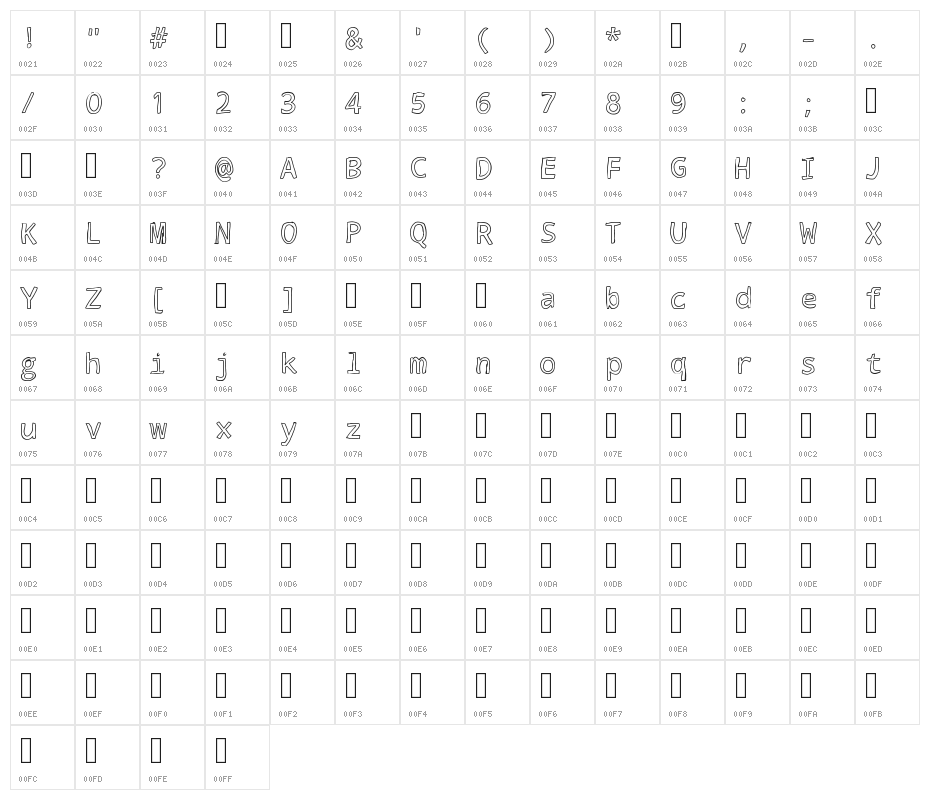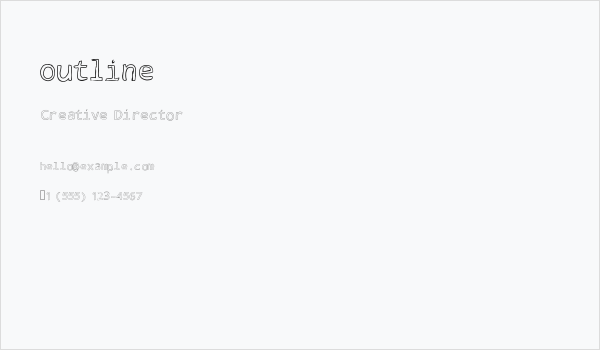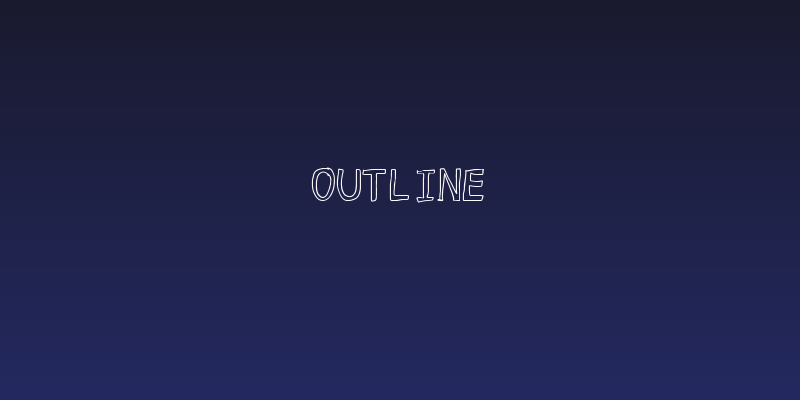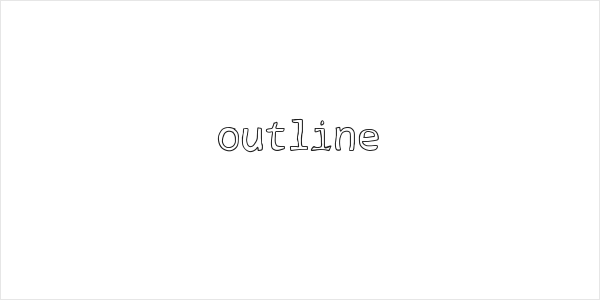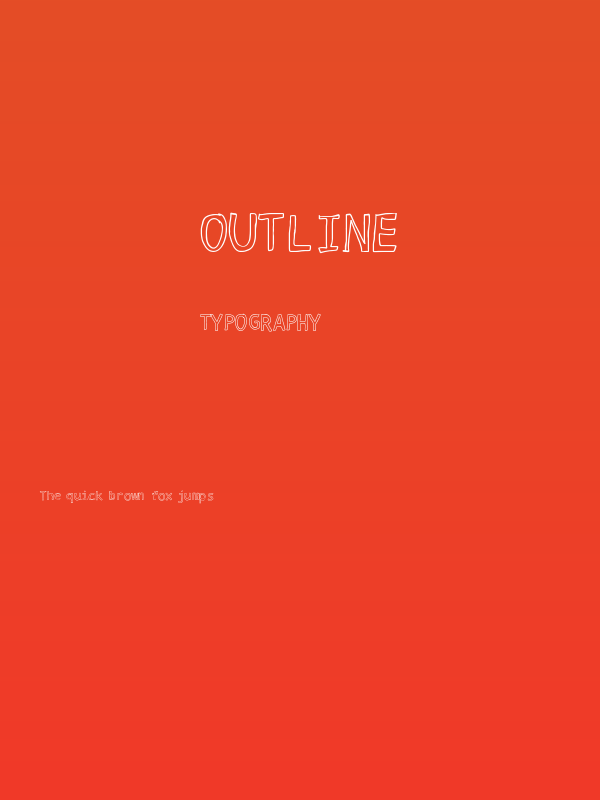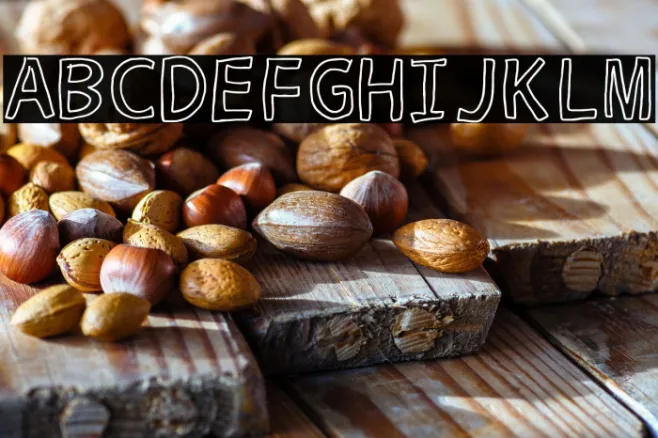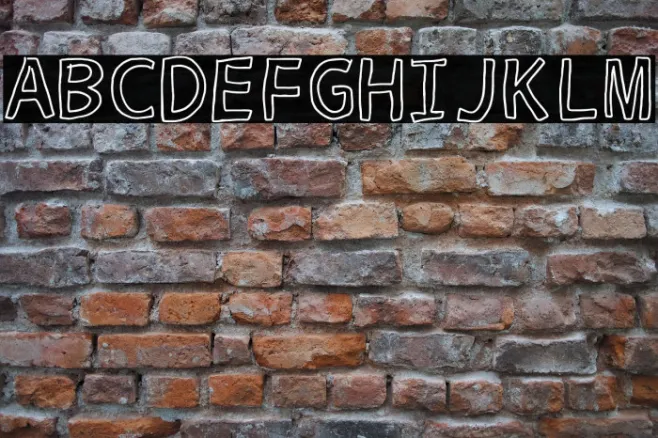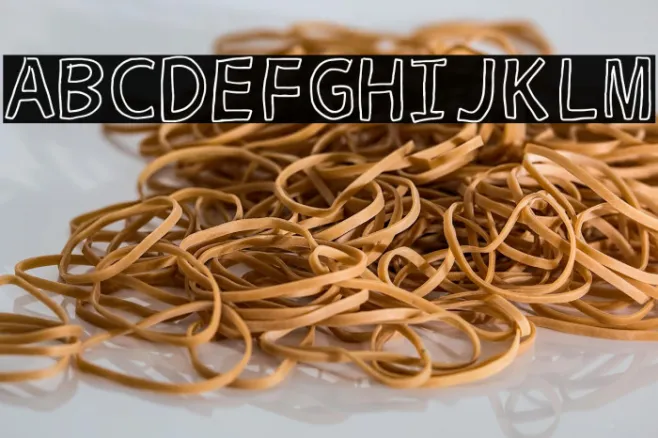
outline Font
outline Description
This font features a playful and informal style, characterized by its hand-drawn, outlined appearance. Each character is crafted with a consistent stroke width, giving it a cohesive look while maintaining a casual and approachable vibe. The uppercase and lowercase letters are well-balanced, with rounded edges that add to the font's friendly demeanor. The numerals and special characters follow the same design principles, ensuring uniformity across all elements. This font's unique outline style makes it stand out, providing a sense of creativity and fun.
| Overall Style | Playful, Informal |
| Proposed Projects | Ideal for children's books, comic strips, playful branding, or any project requiring a fun and informal touch. |